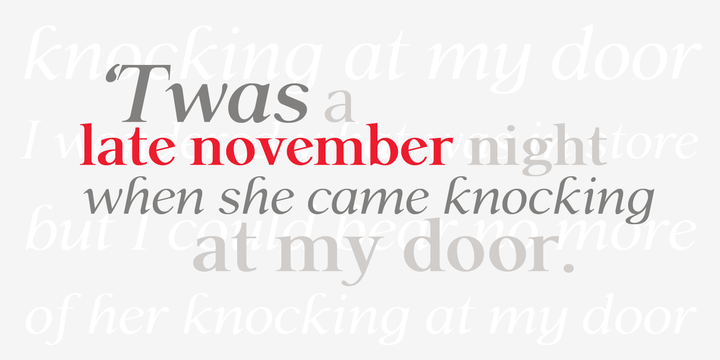
P22 Late November Font
P22 Late November is a new font family from Norwegian type designer Torliev Sverdrup. The font is a transitional Antiqua-inspired type design great for text and display uses.